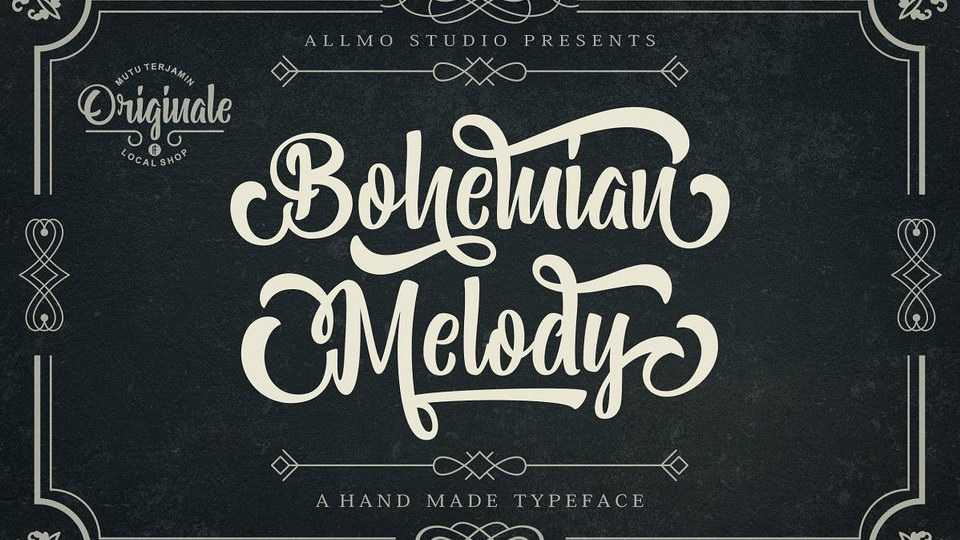
Download Bohemian Melody font, a powerful handwritten script with a natural vintage style. Bohemian Melody script is perfectly suitable for logos, labels, branding, merchandise and more.
Designer: Allmo Studio